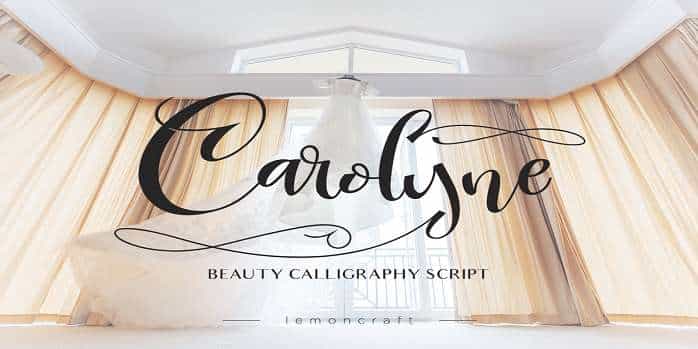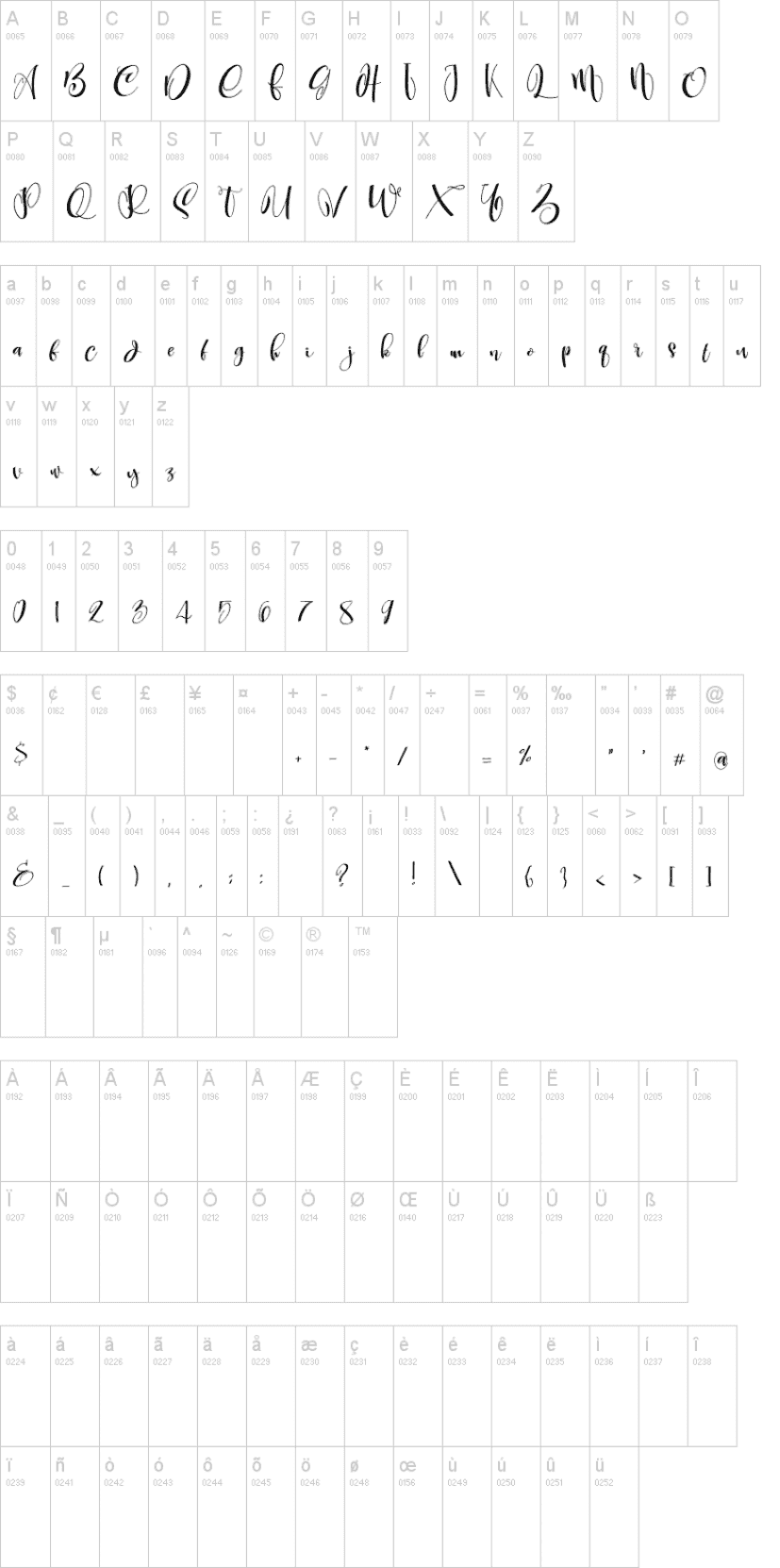
Say Hello to Carolyne -Beauty Calligraphy Script-! It’s a smooth handwritten typeface, made with 182 Glyphs. Carolyne is perfect for branding projects, Feminine taste designs, Bridal & Wedding designs, and sits beautifully on any T-Shirt print, it will also be perfect for product packaging, use in name card, invitation cards, etc. It adds a feminine and soft look as a perfect stylish text overlay to any background image or anything needing a sprinkle of elegance.